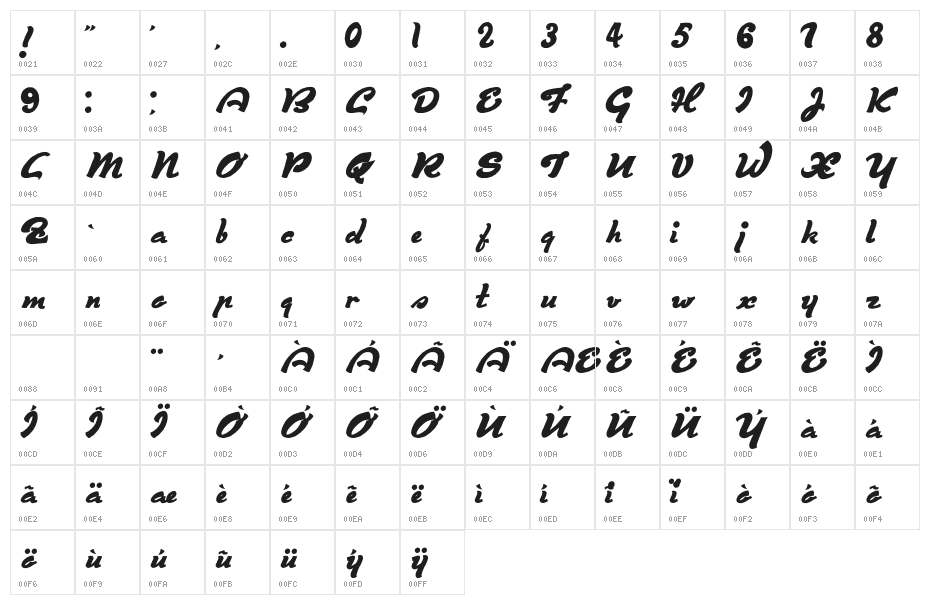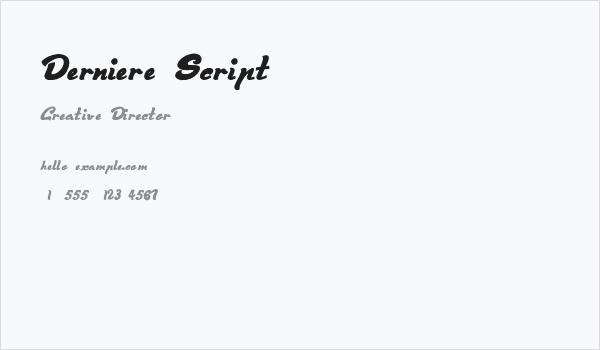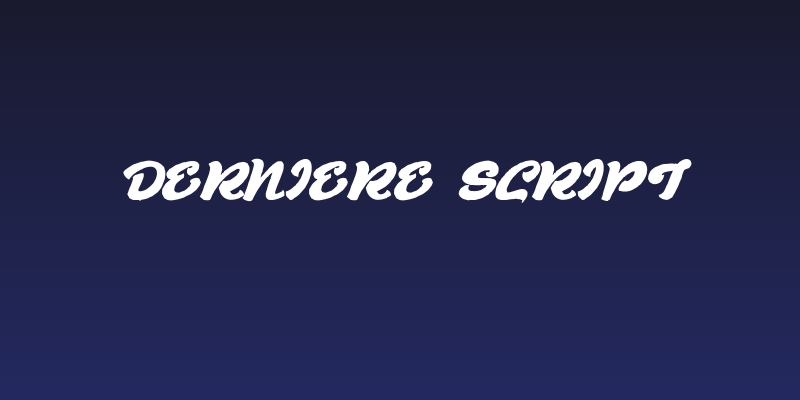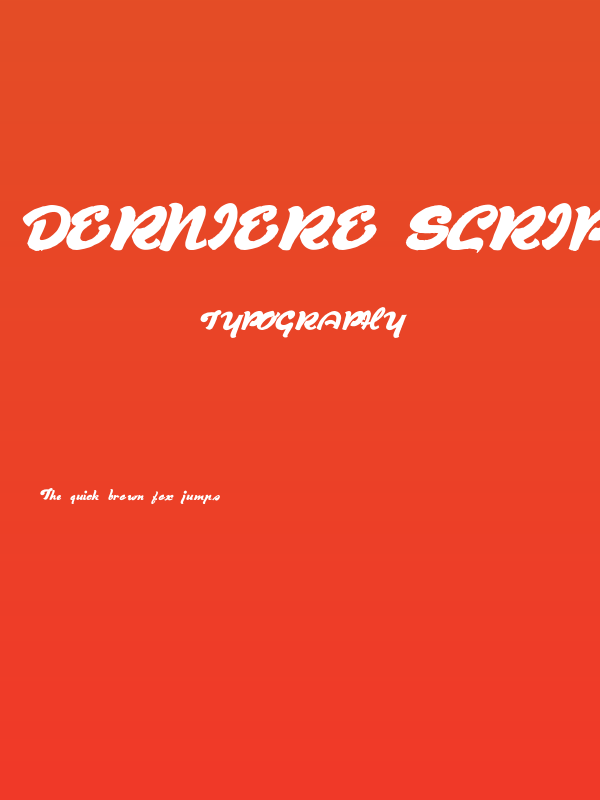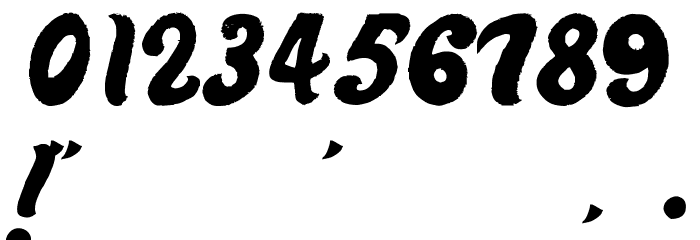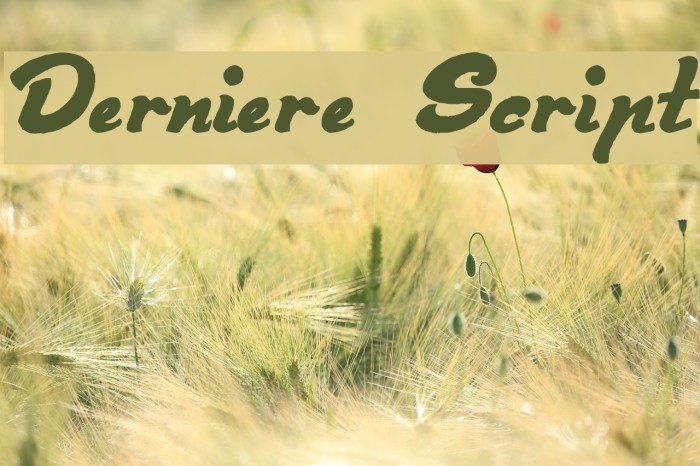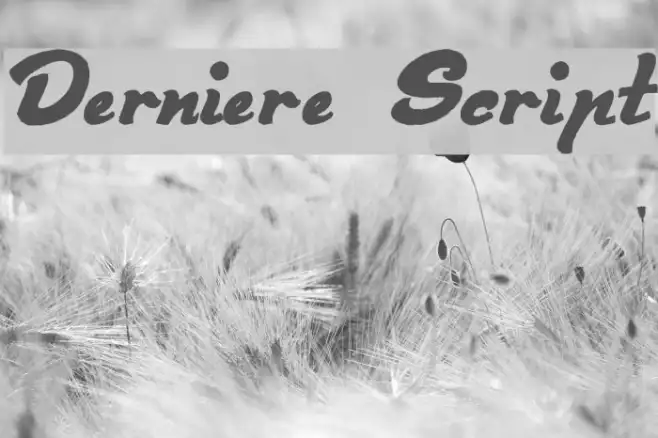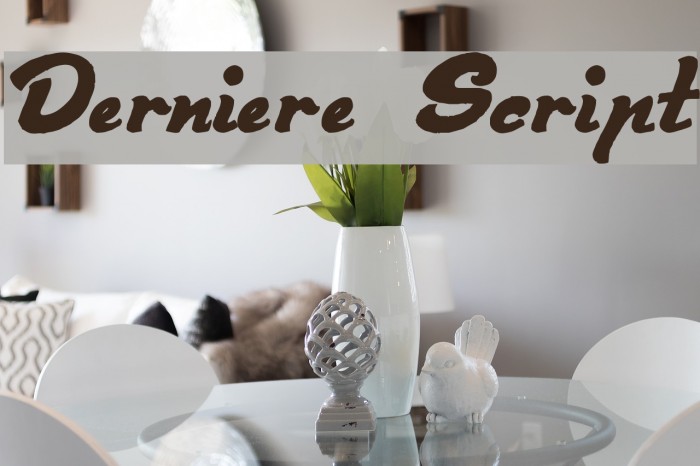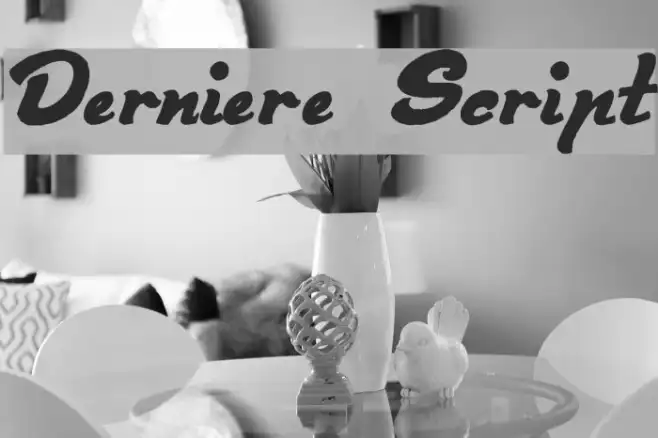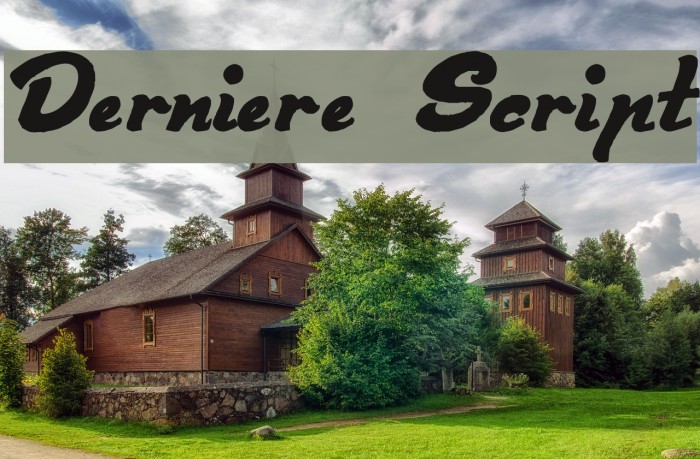
Derniere Script Font
Derniere Script Description
This font exudes a bold and expressive style, characterized by its flowing script and dynamic curves. Each letter is crafted with a sense of movement, giving it a lively and energetic appearance. The uppercase letters are particularly striking, with their sweeping lines and elegant flourishes. The lowercase letters maintain a consistent rhythm, complementing the uppercase with their rounded forms and smooth connections. The numerals are equally bold, ensuring readability while maintaining the overall aesthetic. Special characters are designed with the same attention to detail, seamlessly integrating into the font's cohesive look. This font is perfect for projects that require a touch of elegance and flair, making it ideal for invitations, branding, and artistic designs.
| Use Case | Logos, Headlines, Artistic designs |
| Proposed Projects | Ideal for invitations, branding, artistic designs, and any project needing a touch of elegance. |